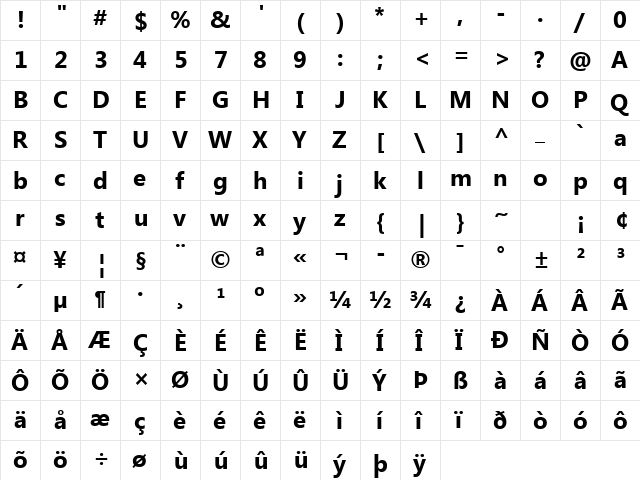
Lao UI Bold
Design Context for Lao UI Typeface
Lao UI takes a measured approach to typography — its balanced proportions and neutral character make it a reliable workhorse for both digital and print work. Its bold stroke weight gives it real presence on the page.